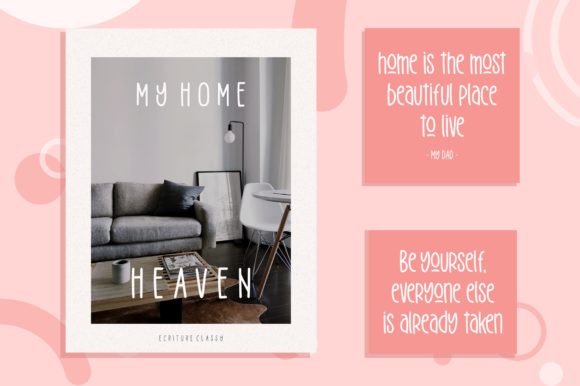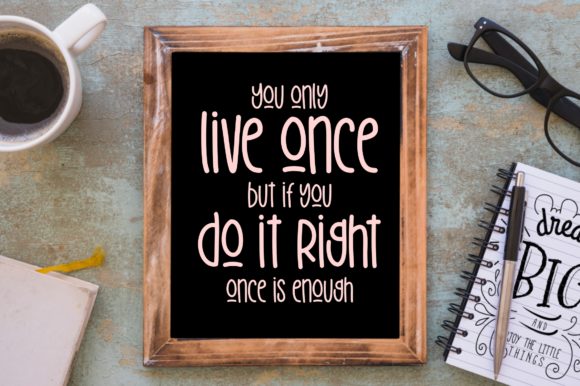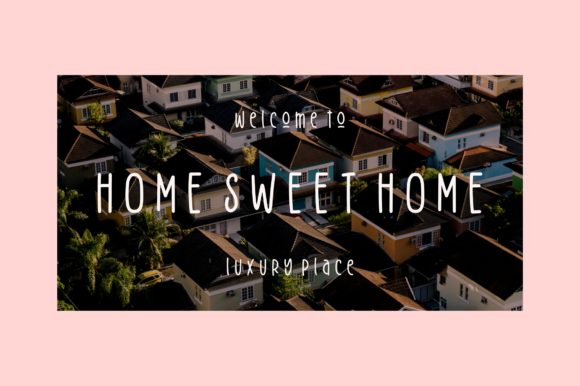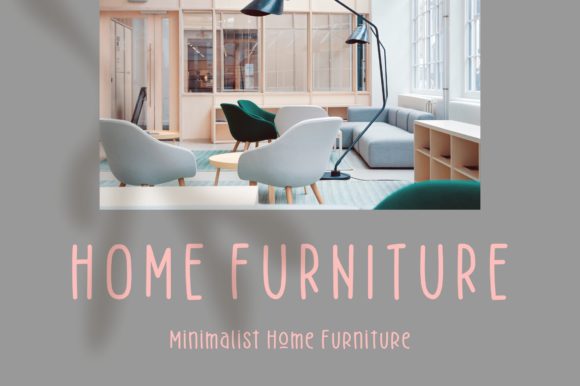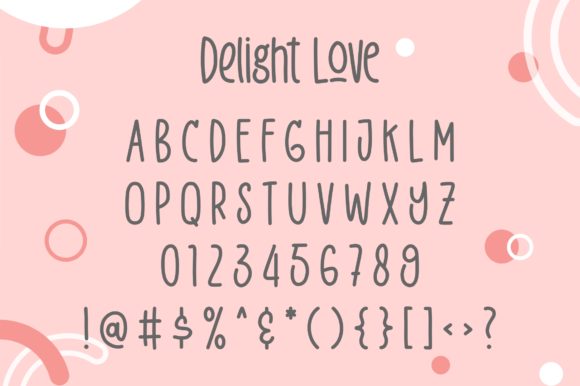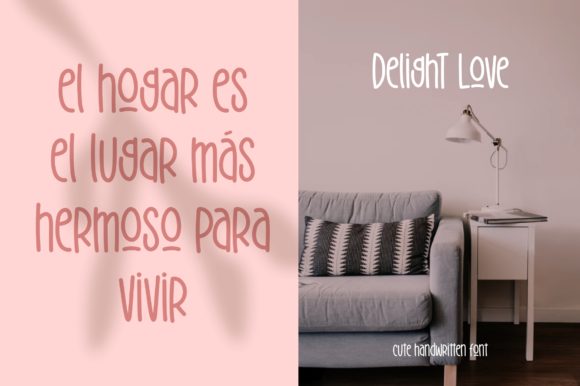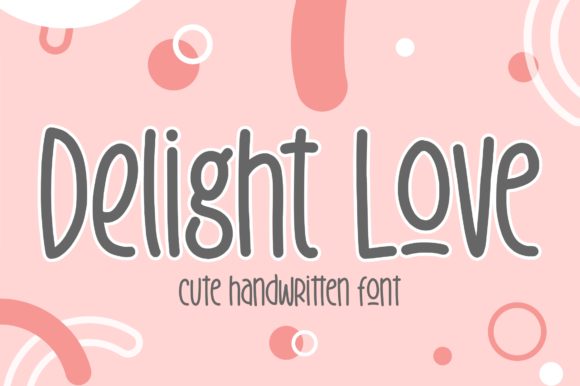
Introducing Delight Love Font: The Perfect Blend of Fun and Clean Design
Are you on the hunt for a font that embodies the perfect blend of fun, cleanliness, and cuteness? Look no further than Delight Love Font. This casual, fun display font is designed to elevate your logos, branding, social media presence, and DIY projects to new heights. In this article, we’ll dive into the world of Delight Love Font, exploring its features, uses, and benefits for designers and crafters alike.
What is Delight Love Font?
Delight Love Font is a unique and charming display font that boasts a clean and cute aesthetic. Its casual and fun design makes it an ideal choice for projects that require a touch of personality and whimsy. Whether you’re a designer looking to create stunning logos and branding materials or a crafter seeking to add a personal touch to your DIY projects, Delight Love Font is the perfect fit.
Key Features of Delight Love Font
- Clean and Cute Design: Delight Love Font features a clean and cute design that is sure to capture the attention of your audience.
- Casual and Fun: This font’s casual and fun vibe makes it perfect for projects that require a touch of personality and playfulness.
- Display Font: Delight Love Font is a display font, making it ideal for headlines, titles, and short text passages.
- Versatile: This font can be used for a wide range of projects, including logos, branding, social media graphics, and DIY crafts.
Uses of Delight Love Font
Delight Love Font is a versatile font that can be used for a variety of projects, including:
- Logos and Branding: Create stunning logos and branding materials that showcase your brand’s personality and style.
- Social Media Graphics: Elevate your social media presence with eye-catching graphics and posts that feature Delight Love Font.
- DIY Crafts: Add a personal touch to your DIY projects, such as handmade cards, invitations, and decorations.
- Stationery and Invitations: Use Delight Love Font to create beautiful stationery and invitations that are sure to impress.
Benefits of Using Delight Love Font
So, why choose Delight Love Font for your projects? Here are just a few benefits of using this amazing font:
- Unique and Eye-Catching: Delight Love Font is a unique and eye-catching font that is sure to capture the attention of your audience.
- Easy to Read: This font is clean and easy to read, making it perfect for short text passages and headlines.
- Versatile: Delight Love Font can be used for a wide range of projects, making it a great addition to your font library.
- Fun and Playful: This font’s fun and playful design makes it perfect for projects that require a touch of personality and whimsy.
Tips for Using Delight Love Font
Here are a few tips for using Delight Love Font in your projects:
- Use it for Headlines and Titles: Delight Love Font is perfect for headlines and titles, where its clean and cute design can shine.
- Pair it with Other Fonts: Experiment with pairing Delight Love Font with other fonts to create a unique and visually appealing design.
- Use it for Short Text Passages: This font is best suited for short text passages, such as captions and descriptions.
| Font Name | Delight Love Font |
| Author | Garisman Studio |
In conclusion, Delight Love Font is a unique and charming display font that is perfect for designers and crafters looking to add a touch of personality and whimsy to their projects. Its clean and cute design, casual and fun vibe, and versatility make it an ideal choice for a wide range of projects, from logos and branding to DIY crafts and social media graphics. So why wait? Download Delight Love Font today and start creating stunning projects that showcase your personality and style!